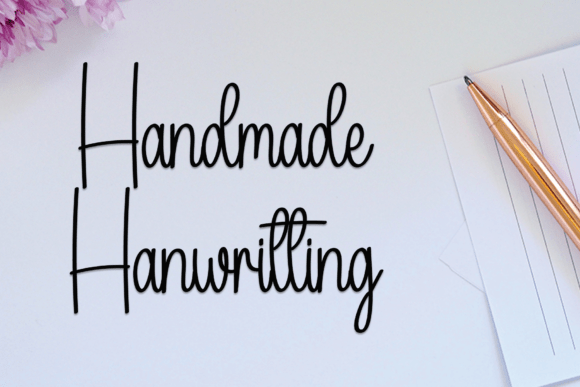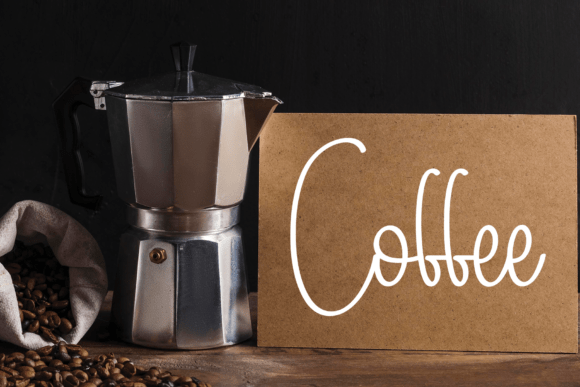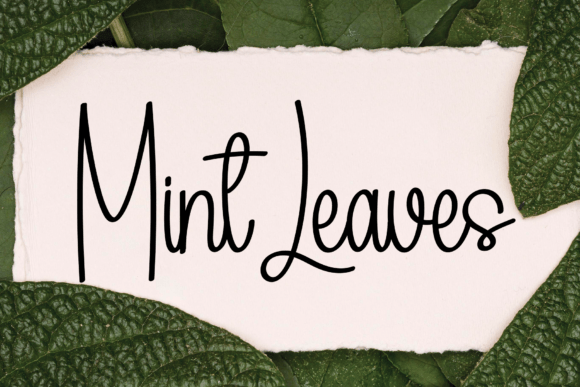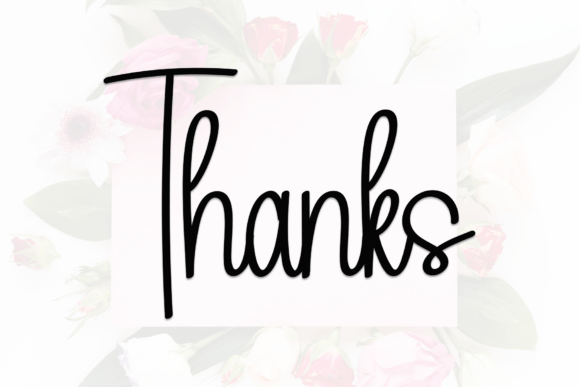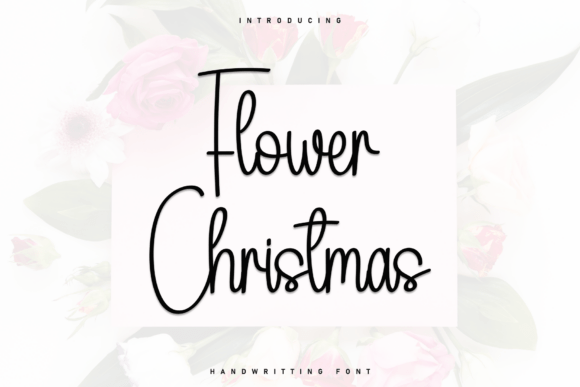
Introducing Flower Christmas Font: A Charming Handwritten Delight
Are you looking for a font that captures the essence of the holiday season with a touch of elegance and whimsy? Look no further than Flower Christmas Font, a beautiful handwritten font that embodies the spirit of Christmas with a sense of heartfelt perfection. In this article, we’ll dive into the details of this lovely font, exploring its features, uses, and benefits for designers and crafters.
A Relaxed yet Festive Aesthetic
Flower Christmas Font boasts smooth strokes and organic lines that evoke a relaxed atmosphere, perfect for creating designs that exude a sense of calm and serenity during the holiday season. The font’s charming handwritten style is reminiscent of a personal, heartfelt message, making it ideal for a variety of design projects, from branding and invitations to social media graphics and more.
Key Features of Flower Christmas Font
• Handwritten style: Flower Christmas Font features a beautiful, handwritten design that adds a personal touch to any project.
• Smooth strokes: The font’s smooth strokes and organic lines create a sense of fluidity and elegance.
• Relaxed atmosphere: The font’s design evokes a relaxed atmosphere, perfect for creating calming and serene designs.
• Versatile: Flower Christmas Font is suitable for a wide range of design projects, from branding and invitations to social media graphics and more.
Uses for Flower Christmas Font
Flower Christmas Font is an incredibly versatile font that can be used in a variety of design projects, including:
• Branding: Use Flower Christmas Font to create a unique and memorable brand identity that captures the essence of the holiday season.
• Invitations: Create beautiful and elegant invitations for holiday parties, weddings, and other special events.
• Social media graphics: Use Flower Christmas Font to create eye-catching social media graphics that showcase your holiday cheer.
• Stationery: Design lovely stationery, such as greeting cards, gift tags, and more, with Flower Christmas Font.
Flower Christmas Font offers numerous benefits for designers and crafters, including:
• Ease of use: The font is easy to read and works well in a variety of sizes, making it perfect for a range of design projects.
• Customization: Flower Christmas Font can be easily customized to fit your design needs, allowing you to create unique and personalized designs.
• Time-saving: With Flower Christmas Font, you can create beautiful designs quickly and efficiently, saving you time and effort.
• Inspiration: The font’s charming design is sure to inspire your creativity and help you create designs that stand out from the crowd.
Tips for Using Flower Christmas Font
To get the most out of Flower Christmas Font, here are a few tips to keep in mind:
• Pair with complementary fonts: Pair Flower Christmas Font with complementary fonts to create a unique and visually appealing design.
• Experiment with colors: Try out different color schemes to find the perfect combination that complements your design.
• Play with textures: Add texture to your design by incorporating patterns, illustrations, or other design elements.
Flower Christmas Font is a charming handwritten font that is sure to capture the essence of the holiday season with a sense of heartfelt perfection. With its smooth strokes, organic lines, and relaxed atmosphere, this font is perfect for a variety of design projects, from branding and invitations to social media graphics and more. Whether you’re a designer or crafter, Flower Christmas Font is a great addition to your font collection, offering ease of use, customization, and inspiration for your creative projects.